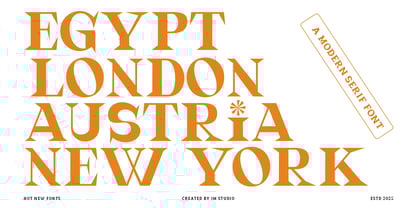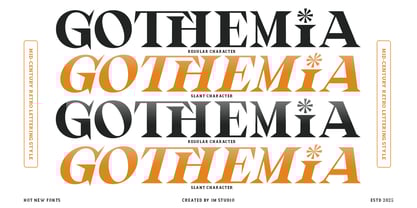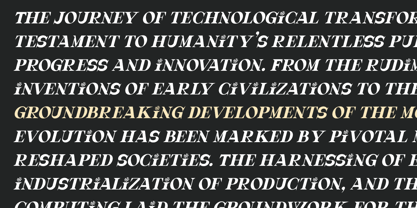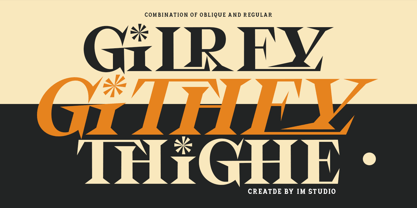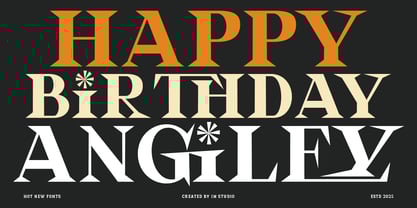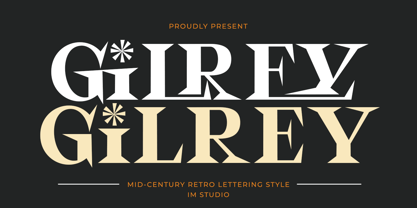
Gilrey
by IM Studio
The Gilrey Font Family was designed by Ikhsan Maulana and published by IM Studio. Gilrey contains 2 styles and family package options.
Gilrey i is a mid century & retro style font. Its perfect for your display or product designs such as shirts, poster designs, stickers, logos, branding, greeting cards, Cricut projects, posters, magazines, social media, planner prints and websites.